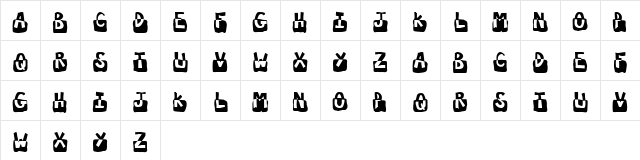
Submerged Watery Free Font
Submerged Watery
Style: Watery
Submerged Family
Submerged Watery
Design Context for Submerged
Submerged is a composed and adaptable typeface that performs quietly and consistently across a wide range of design contexts.